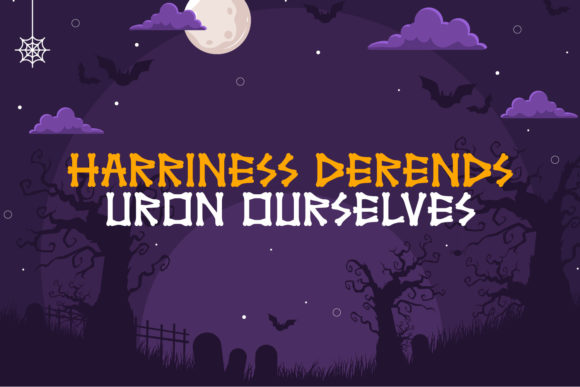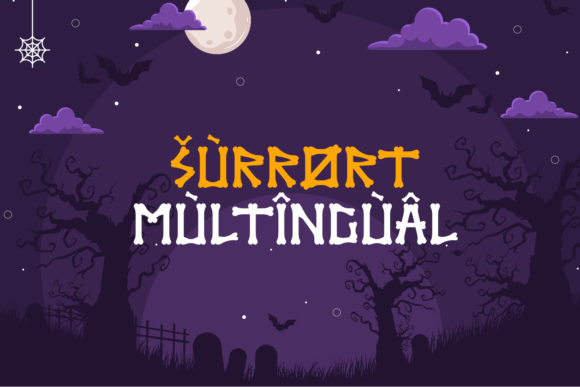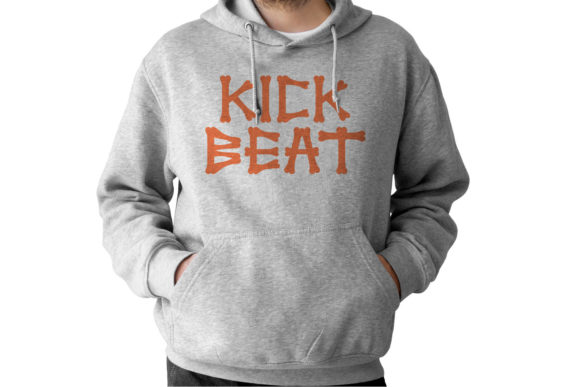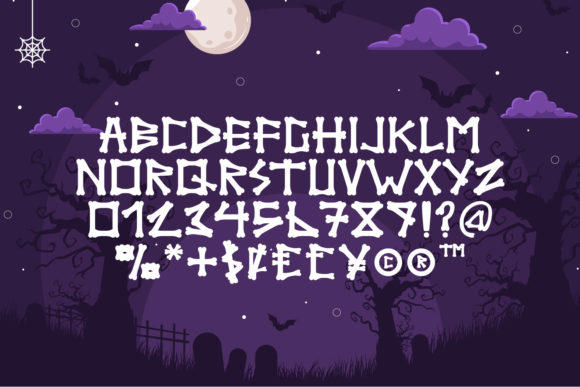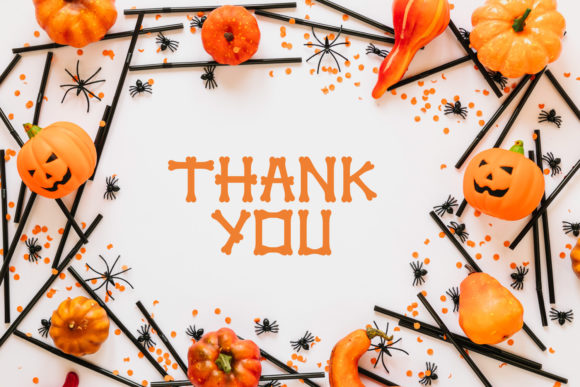
Introduction to Funny Bone Font
Funny Bone is a creepy and cool looking display font.
It is perfectly suitable for any Halloween-related project or crafty idea The only limit is your imagination.